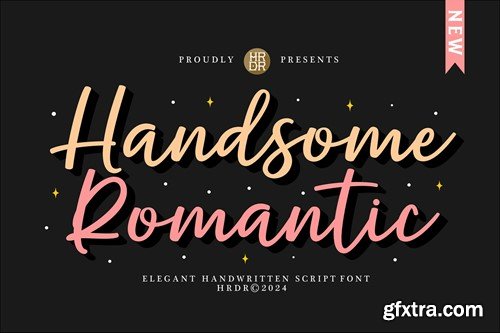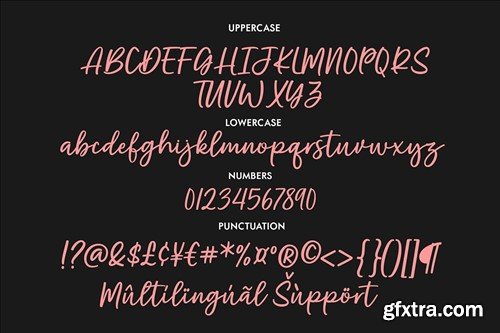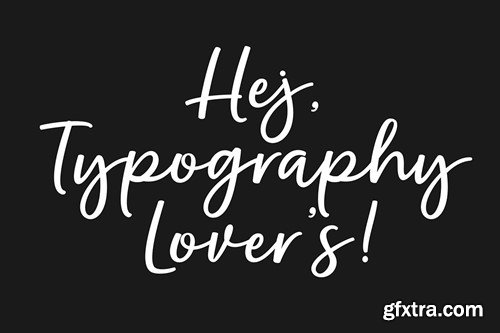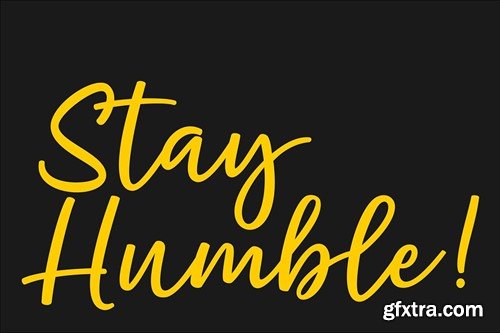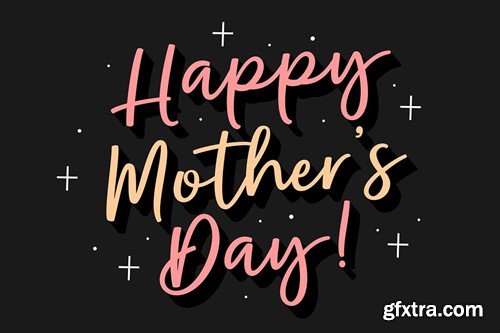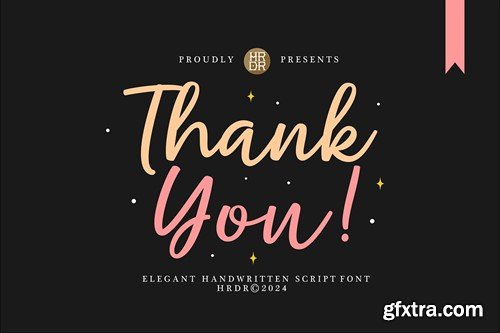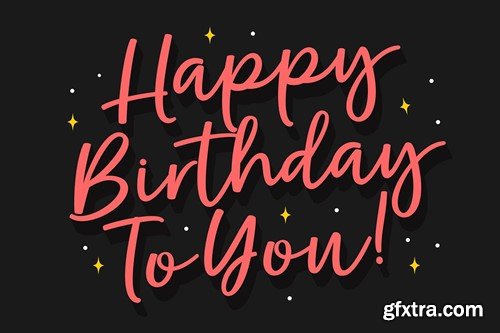
Handsome Romantic - Elegant Handwritten Font XFGQ3GZ
Handsome Romantic - Elegant Handwritten Font
Handsome Romantic Font is a modern and Elegant Handwritten script font. It's perfect for branding, wedding invitations, photography, Neon Sign, bloggers, logos, greeting cards, Logo, Quotes, Lettering, Posters and more.
Font Features :
• Uppercase
• Lowercase
• numeric & Multilingual support
• Ligatures